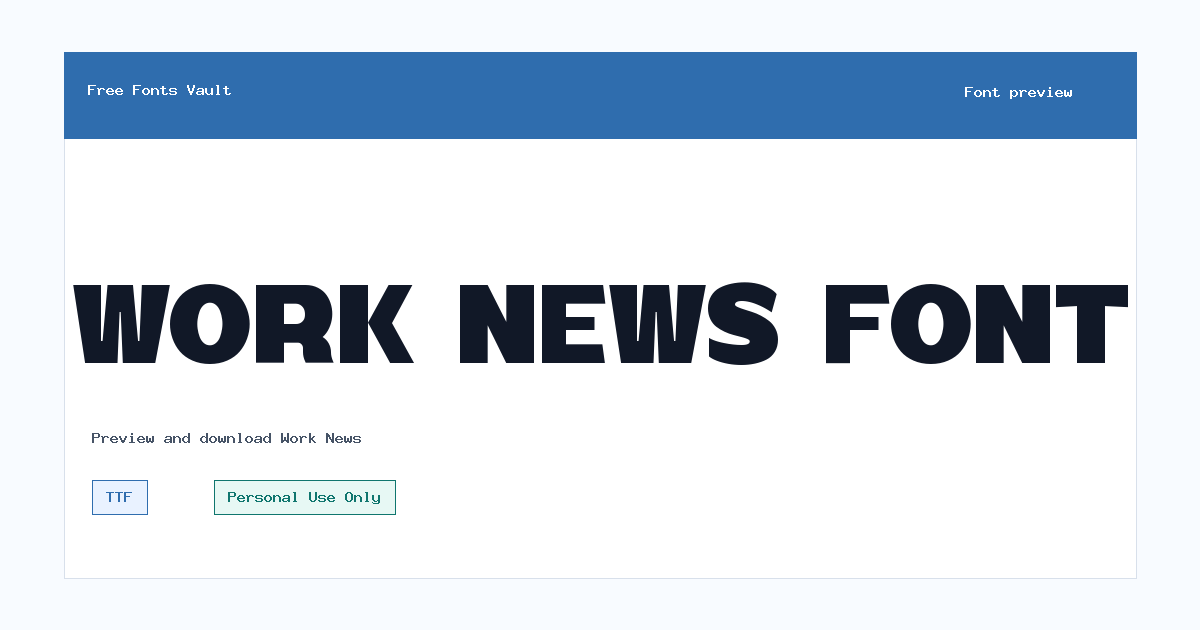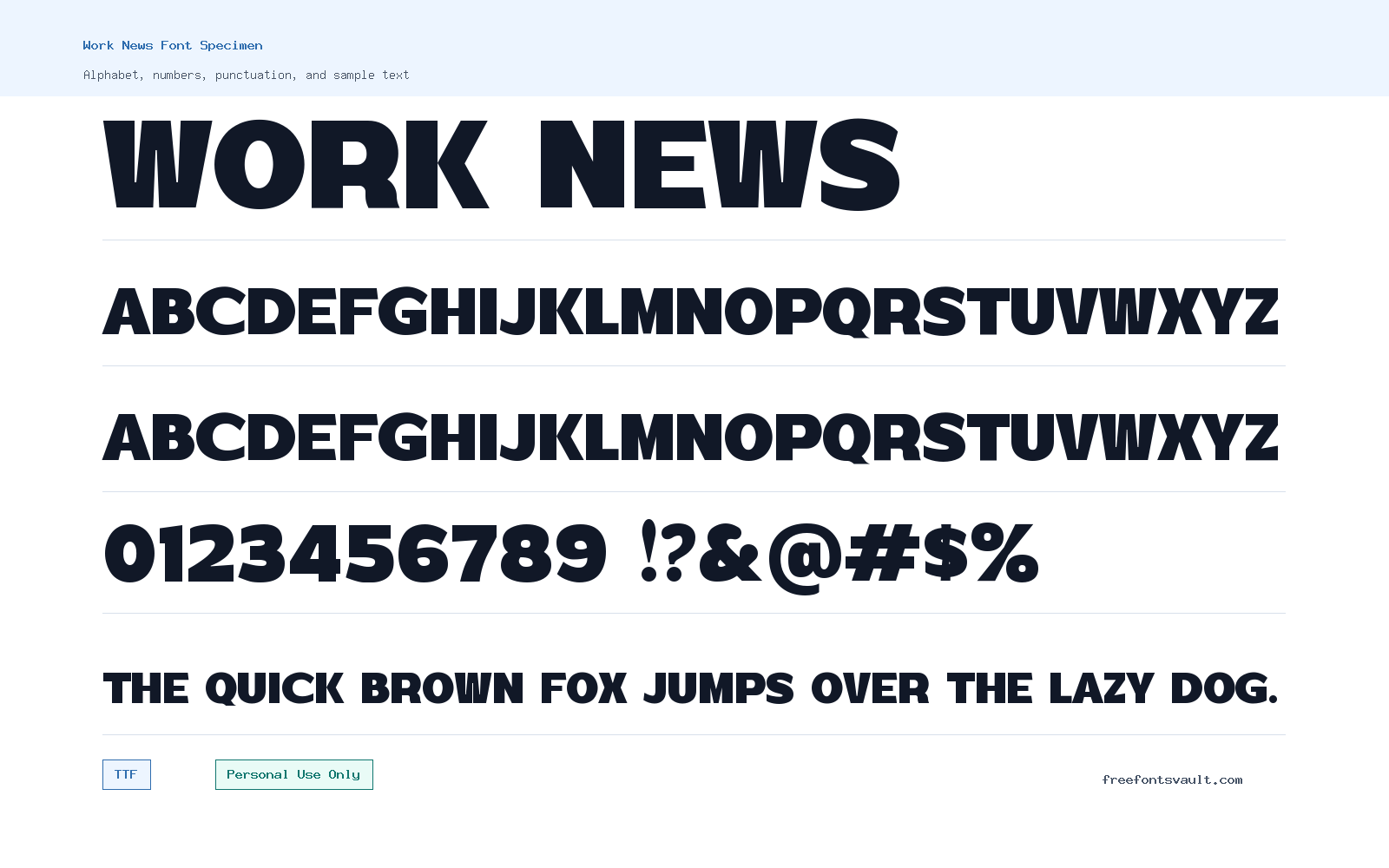
Work News
Work News Font
• Designer Usman Albaehaqi
• Foundry Graphicxell
Work News font.
Work News is a clean sans serif font family with a regular TTF file for personal design projects. It is a practical choice when you need simple, modern-looking lettering for short text, headings, and preview-based layout testing.
About Work News Font
Work News has a straightforward sans serif style, which makes it easy to try in many kinds of visual layouts without the decoration or texture of a display script. The available file is a regular weight, so it is best approached as a balanced everyday style rather than a large multi-weight family. Use the preview box to test your own words, especially if you plan to use it for titles, social posts, small banners, or mockups where spacing and letter shapes matter.
Because only one regular TTF variant is listed, Work News is easiest to use in simple designs that do not need bold, italic, or extended weight options. Try it with short headlines, clean labels, quote graphics, presentation covers, or personal branding drafts. For longer reading text, test several paragraph sizes first; many single-style fonts work better as accents than as full body-copy systems. If you need a complete brand kit, pair it with a neutral text font that has more weights and clear readability at small sizes.
• Simple structure suited to short headings, labels, and personal design mockups
• Personal posters, social graphics, quote cards, and simple title designs
• Testing clean sans serif lettering in logos, headers, and presentation mockups
The font is credited to Usman Albaehaqi, with Graphicxell listed as the foundry.
Who designed Work News?
Work News is credited to Usman Albaehaqi, with Graphicxell listed as the foundry.
What kind of projects does Work News suit?
It is best for short, clean text uses such as headings, social graphics, labels, mockups, and personal poster designs. Test it carefully before using it for long paragraphs.
Does Work News include multiple weights?
Only a regular 400 style is listed, so bold, italic, or other weights should not be assumed.